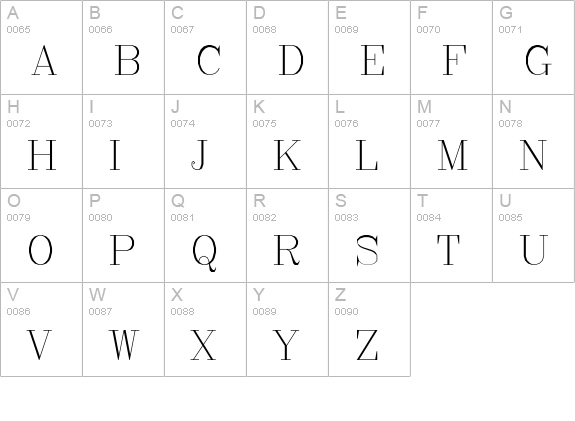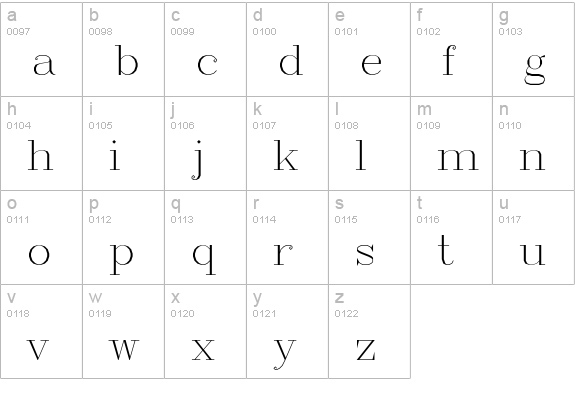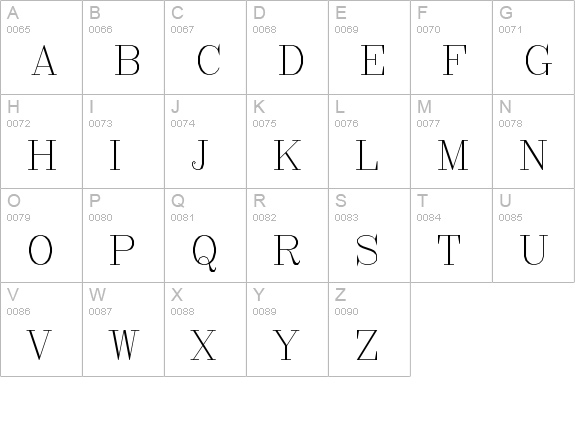
RomanC Font Details
RomanC font is a classic and elegant typeface that exudes sophistication and timeless charm. With its clean lines and balanced proportions, this versatile font is perfect for a wide range of design projects, from branding to editorial layouts. The RomanC font is available for free download at FontsMarket.com, making it easily accessible to designers and creatives looking to add a touch of sophistication to their work. Whether you're designing a logo, creating a poster, or crafting a wedding invitation, RomanC font is sure to elevate your design with its refined aesthetic.